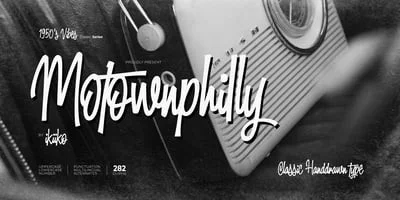
Motownphilly Font
Motownphilly Font is perfect for soul music venue branding, R&B recording studio signage, Philadelphia heritage tours, Motown tribute shows, urban cultural center materials, and classic soul music festival graphics.
Motownphilly Font is exciting because it captures the rhythmic soul and urban groove of classic American music cities, delivering a soulful typeface that embodies musical heritage, urban culture, and the timeless rhythm of Detroit and Philadelphia soul traditions.
The Motownphilly Font family includes groove variations: Motownphilly Light, Motownphilly Regular, Motownphilly Bold, rhythmic alternates, and decorative elements inspired by vintage soul music typography and urban street culture aesthetics.
Get into the groove with Motownphilly Font, a rhythmically crafted typeface that brings soul music heritage and urban cultural pride to your most soulful design projects. This groovy font excels in creating memorable branding for music venues, recording studios, cultural preservation societies, and entertainment organizations that celebrate the incredible musical legacy and cultural contributions of Detroit's Motown and Philadelphia's soul music traditions. The rhythmically designed letterforms feature flowing curves and musical proportions that simulate the smooth grooves and urban rhythms of classic soul music while ensuring excellent readability across all music and cultural applications. Perfect for soul music documentaries, urban heritage festivals, music education programs, and cultural tourism materials that need to convey musical authenticity and urban cultural pride, this font connects with music lovers who appreciate the artistic achievements and social impact of soul music traditions. Each character moves with soulful rhythm, making every musical message feel like a classic hit that celebrates the incredible artists who created the soundtrack of American urban culture. Motownphilly Font transforms musical communications into soulful tributes that honor the rich heritage of American soul music while inspiring new generations to appreciate the cultural treasures that emerged from Detroit and Philadelphia's vibrant musical communities.